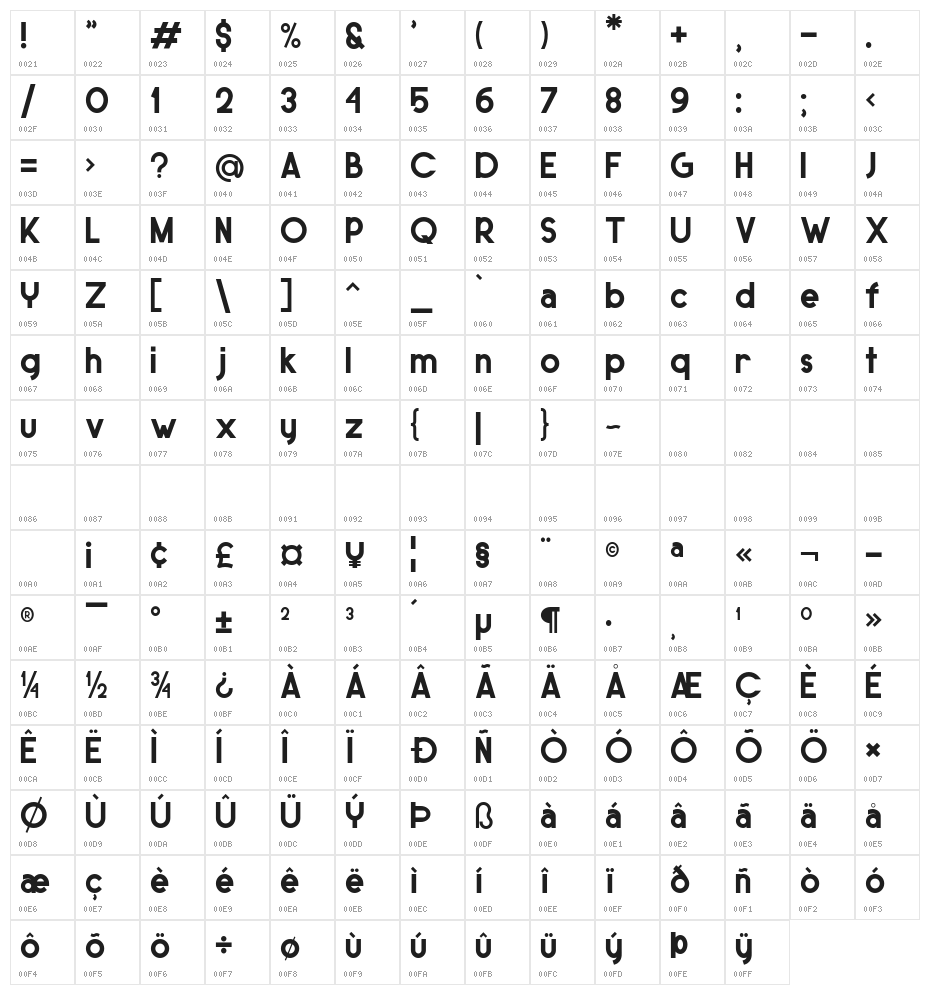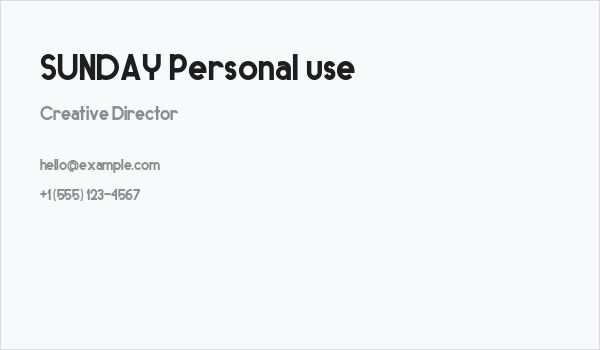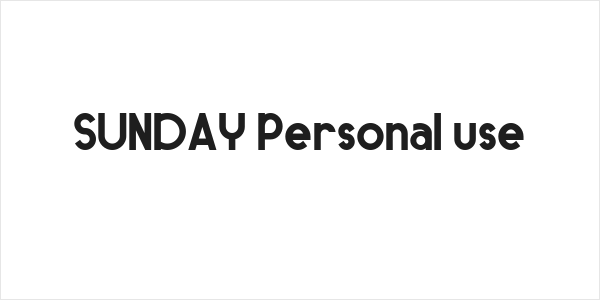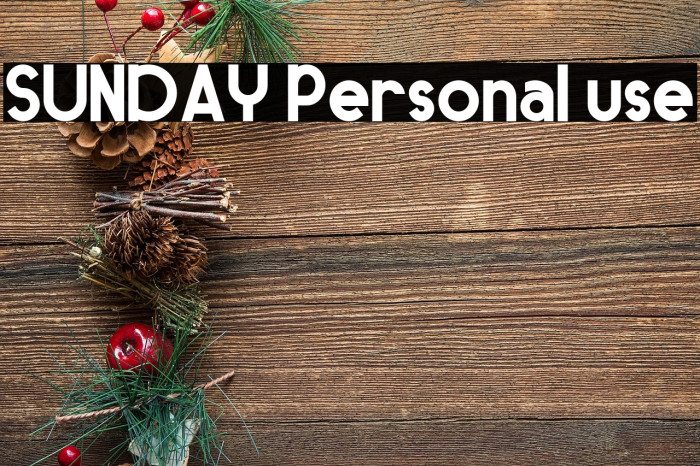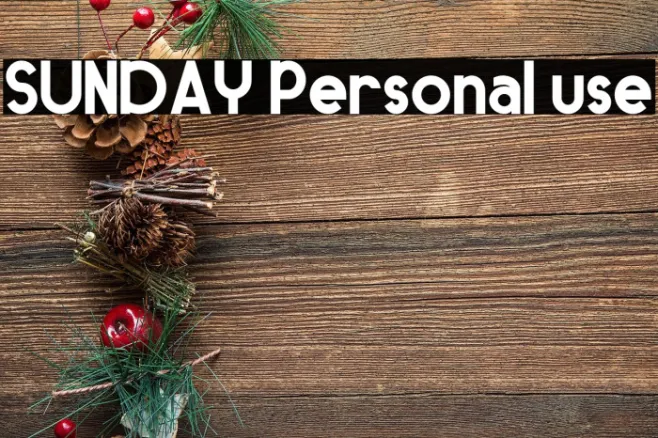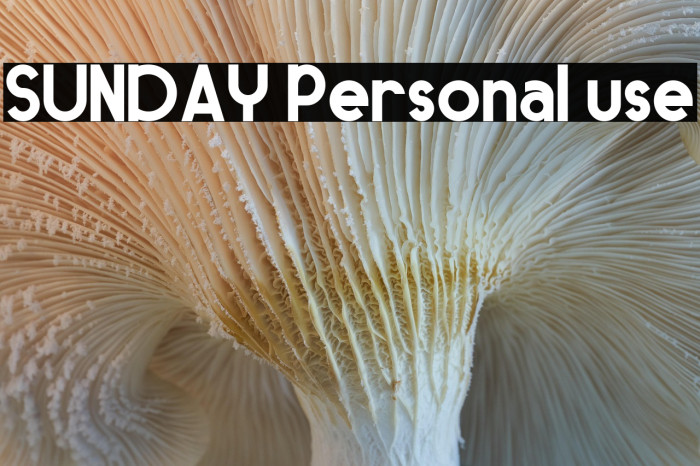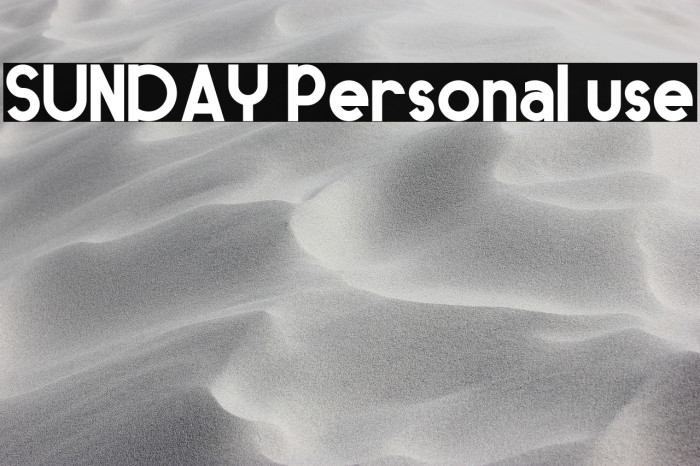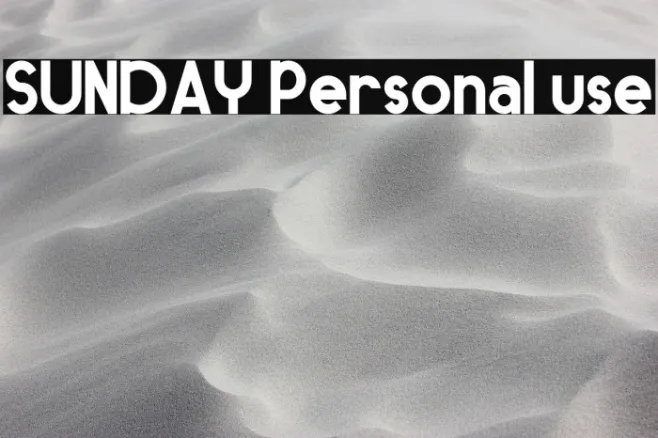
SUNDAY Personal use Font
SUNDAY Personal use Description
This font features a bold and modern sans-serif style with clean lines and a geometric structure. The uppercase letters are uniform in height, while the lowercase letters maintain a consistent baseline, enhancing readability. The numerals are proportionate and align well with the overall design. Special characters are distinct and maintain the font's cohesive look. The font's simplicity and clarity make it versatile for various design applications.
| Proposed Projects | Ideal for branding, advertising, headlines, and digital content where a modern and bold statement is needed. |